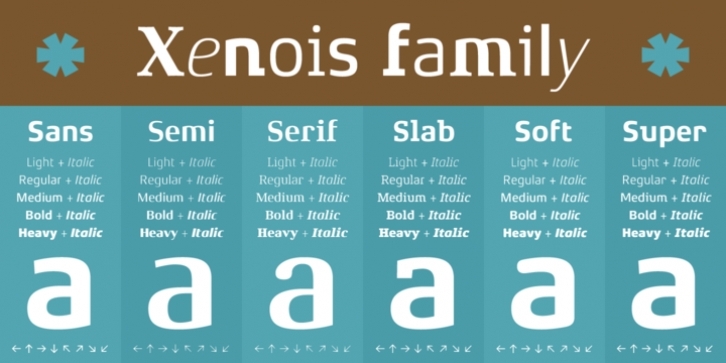
Xenois Semi Pro was designed by Erik Faulhaber and published by Linotype. Xenois Semi Pro contains 10 styles and family package options.
Xenois is a sweeping suite of designs that will provide solutions for a multitude of projects. Annual reports, restaurant menus, business correspondence, corporate identity programs, movie credits and advertising campaigns can all be set with various faces from the family. Interrelating perfectly, the sub-families within the series include Xenois Sans, Serif, Semi, Soft, Slab and Super.
The designs have a common and obvious design bond, yet each is able to stand on its own as a distinct typestyle. The Xenois typefaces are based on a common underlying model; they have the same cap height, the same lowercase x-height, the same stem weights, and the same basic character shapes. This unity of shape and proportion results in a remarkably complementary set of typeface designs.